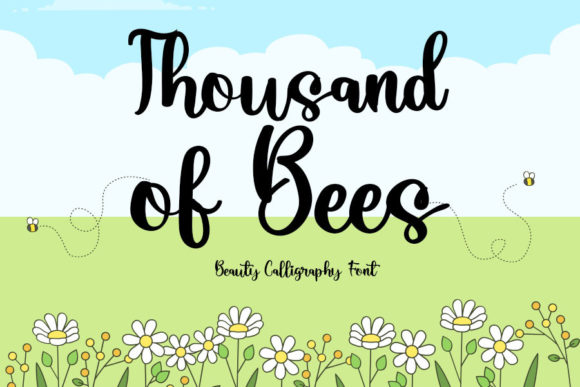
Thousand of Bees Font: A Dainty and Flowing Handwritten Font for Romantic Designs
Are you looking for a font that can add a touch of sweetness and joy to your designs? Look no further than the Thousand of Bees font, a dainty and flowing handwritten font that is perfect for creating romantic and personalized designs. In this article, we’ll take a closer look at the Thousand of Bees font, its features, and how you can use it to create beautiful wedding invitations, cards, and other designs.
What is Thousand of Bees Font?
Thousand of Bees is a beautiful handwritten font that is characterized by its flowing and dainty strokes. It’s a sweet and joyful font that is perfect for creating designs that require a romantic and personalized touch. The font is designed to look like it’s been written by hand, with subtle imperfections and variations in letter size and spacing that give it a unique and charming feel.
Features of Thousand of Bees Font
The Thousand of Bees font has several features that make it an ideal choice for romantic designs. Some of its key features include:
- Handwritten style: The font has a beautiful handwritten style that is perfect for creating personalized designs.
- Dainty and flowing strokes: The font’s strokes are dainty and flowing, giving it a sweet and joyful feel.
- Romantic and elegant: The font is perfect for creating romantic and elegant designs, such as wedding invitations and cards.
- Easy to read: Despite its handwritten style, the font is easy to read and understand, making it perfect for use in a variety of designs.
Uses of Thousand of Bees Font
The Thousand of Bees font is a versatile font that can be used in a variety of designs. Some of the most popular uses for the font include:
- Wedding invitations: The font is perfect for creating beautiful and romantic wedding invitations that will set the tone for the big day.
- Cards: The font can be used to create beautiful and personalized cards for special occasions, such as birthdays, anniversaries, and holidays.
- Social media graphics: The font can be used to create beautiful and eye-catching social media graphics, such as Instagram posts and Facebook updates.
- Logos and branding: The font can be used to create beautiful and unique logos and branding materials for businesses and organizations.
Tips for Using Thousand of Bees Font
Here are a few tips for using the Thousand of Bees font in your designs:
- Use it sparingly: The font is best used sparingly, as it can be overwhelming if used too much. Use it for headings or titles, and pair it with a simpler font for body text.
- Pair it with other fonts: The font pairs well with other fonts, such as serif and sans-serif fonts. Experiment with different pairings to find the one that works best for your design.
- Use it in digital designs: The font is perfect for use in digital designs, such as social media graphics and website headers.
- Experiment with colors: The font looks great in a variety of colors, so don’t be afraid to experiment and find the color that works best for your design.
The Thousand of Bees font is a beautiful and versatile font that is perfect for creating romantic and personalized designs. Its dainty and flowing strokes make it a sweet and joyful font that is ideal for use in wedding invitations, cards, and other designs. With its ease of use and flexibility, it’s no wonder that the Thousand of Bees font is a popular choice among designers. So why not give it a try and see how it can add a touch of sweetness and joy to your designs?
- What is the Thousand of Bees font? The Thousand of Bees font is a dainty and flowing handwritten font that is perfect for creating romantic and personalized designs.
- What is the Thousand of Bees font used for? The Thousand of Bees font is perfect for use in wedding invitations, cards, social media graphics, logos, and branding materials.